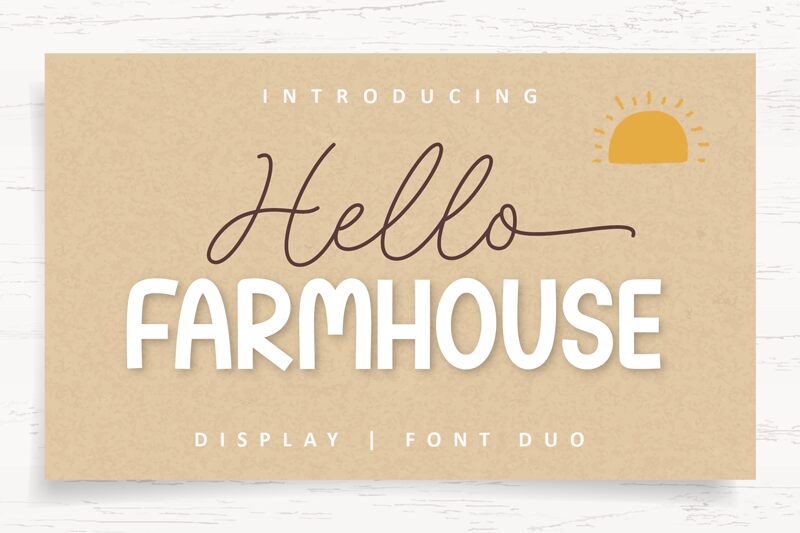
Hello Farmhouse Sans
Hello Farmhouse Sans, designed by AV Type, is a delightful display font that brings a touch of vintage charm to your projects. With its semi-bold weight and comic style, this font is perfect for creating eye-catching headlines, playful logos, and whimsical packaging designs. Whether you're working on a children's book cover or a trendy cafe menu, Hello Farmhouse Sans adds a dash of personality and nostalgia. Its wide range of widths makes it versatile for various projects like greeting cards, branding materials, and even social media graphics. Embrace the farmhouse aesthetic with this charming typeface!